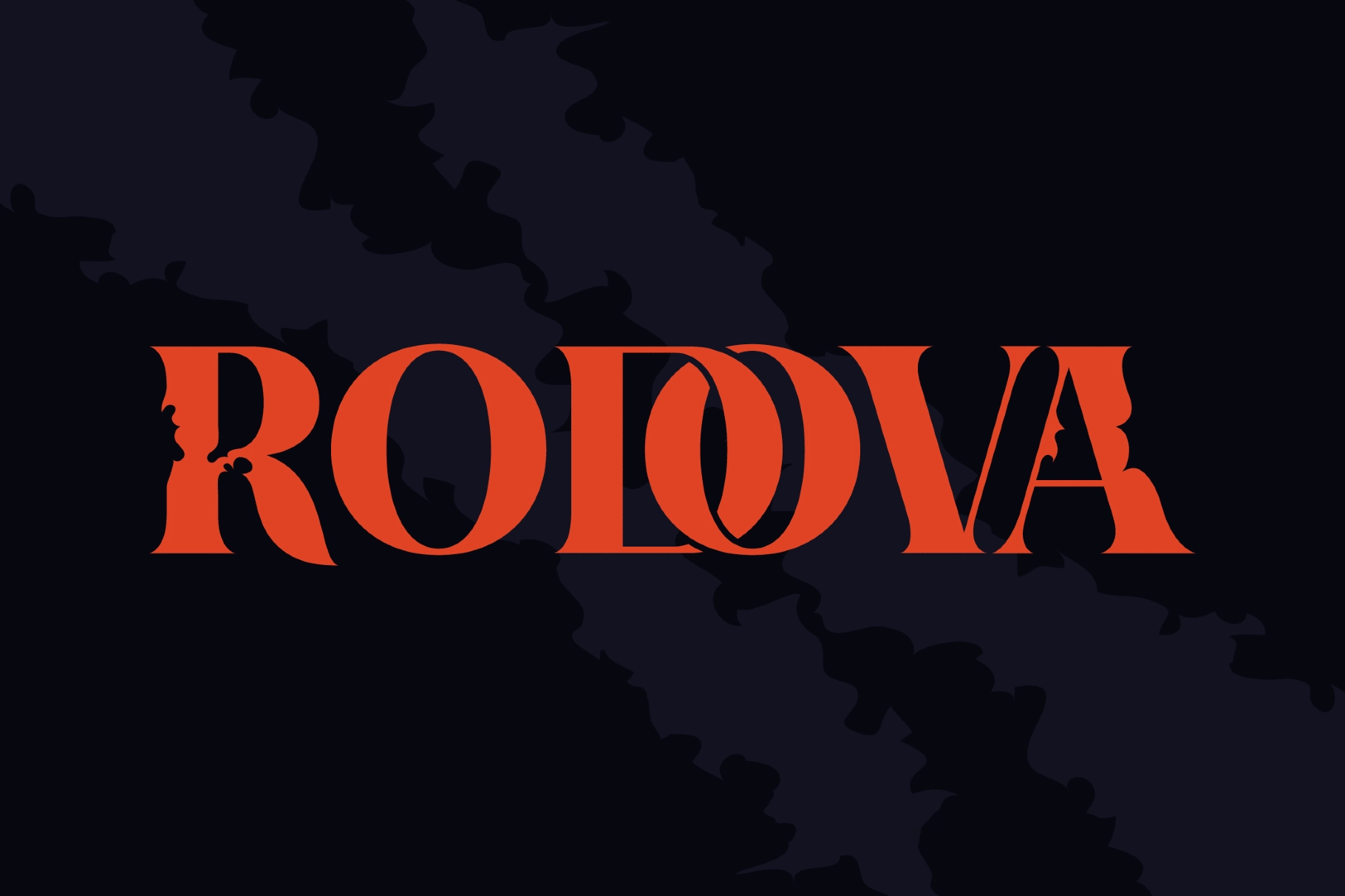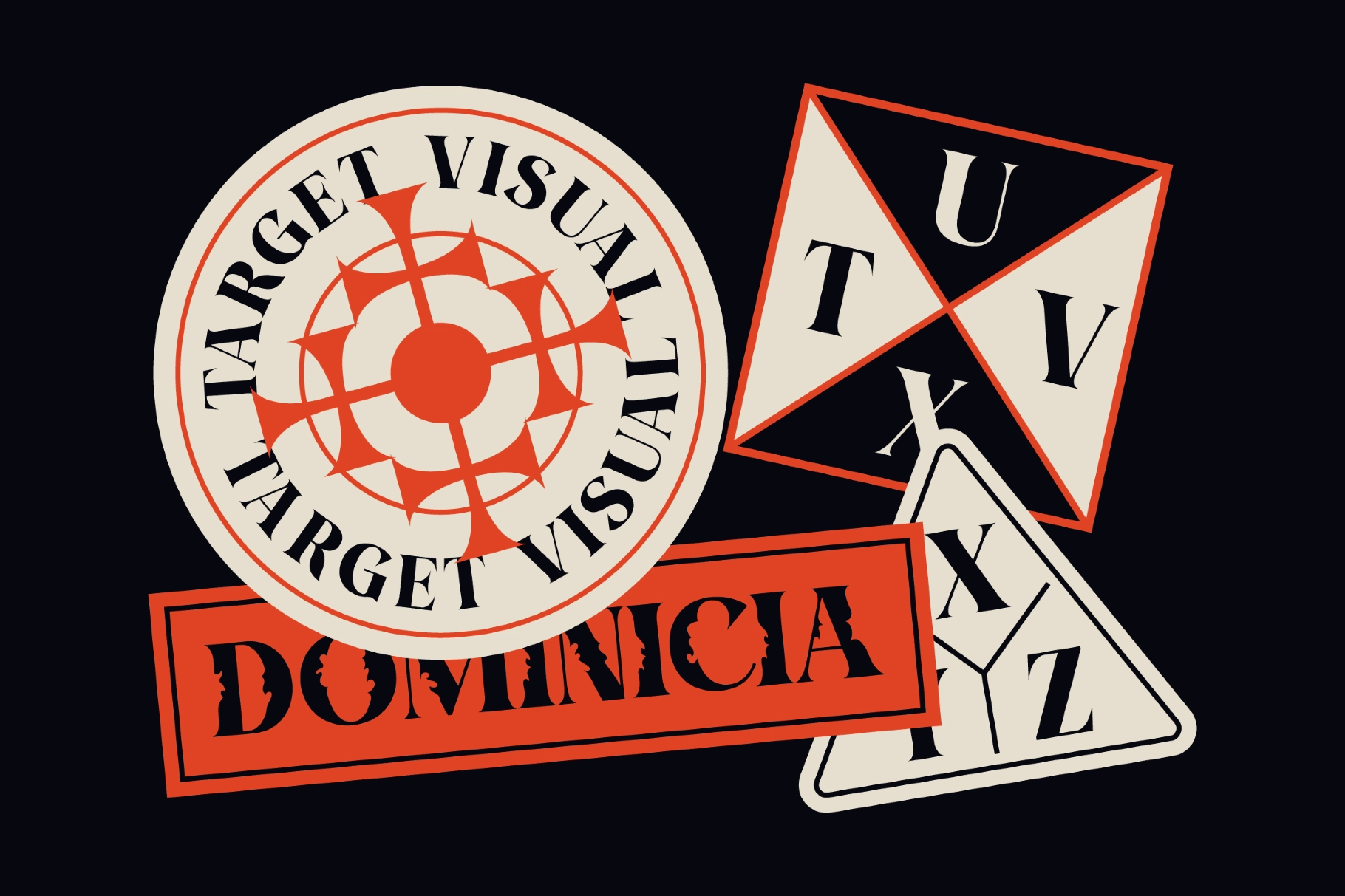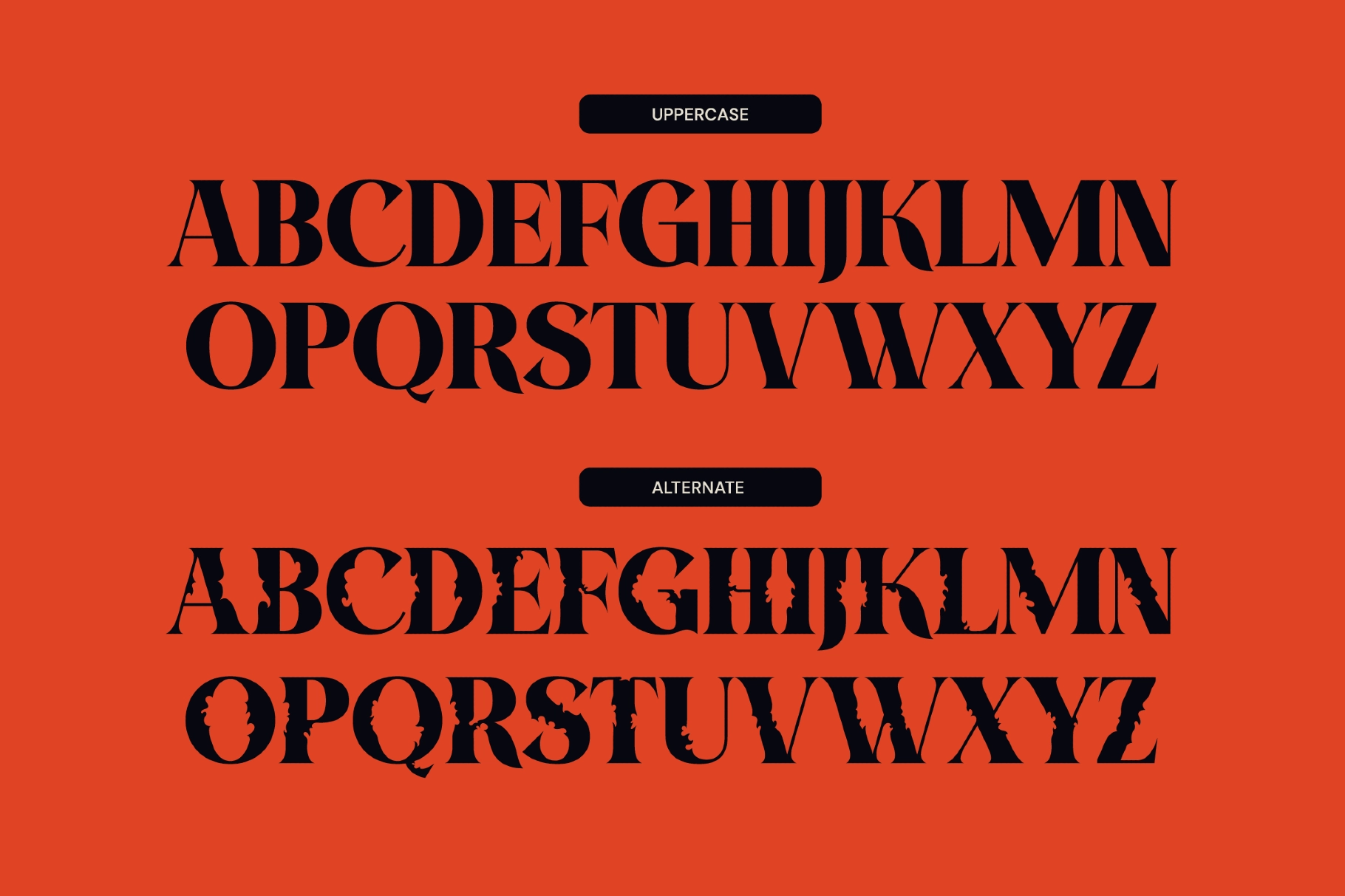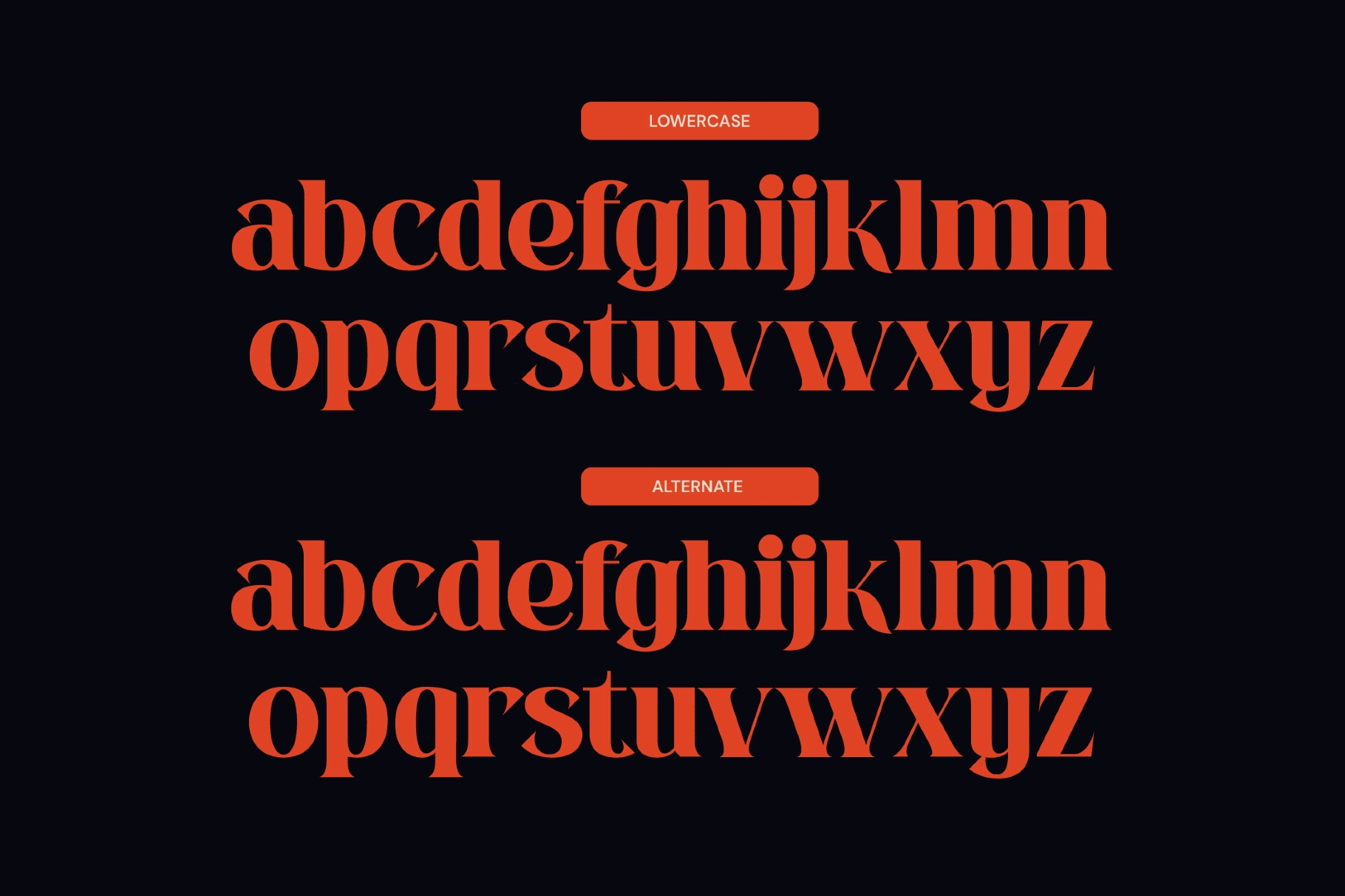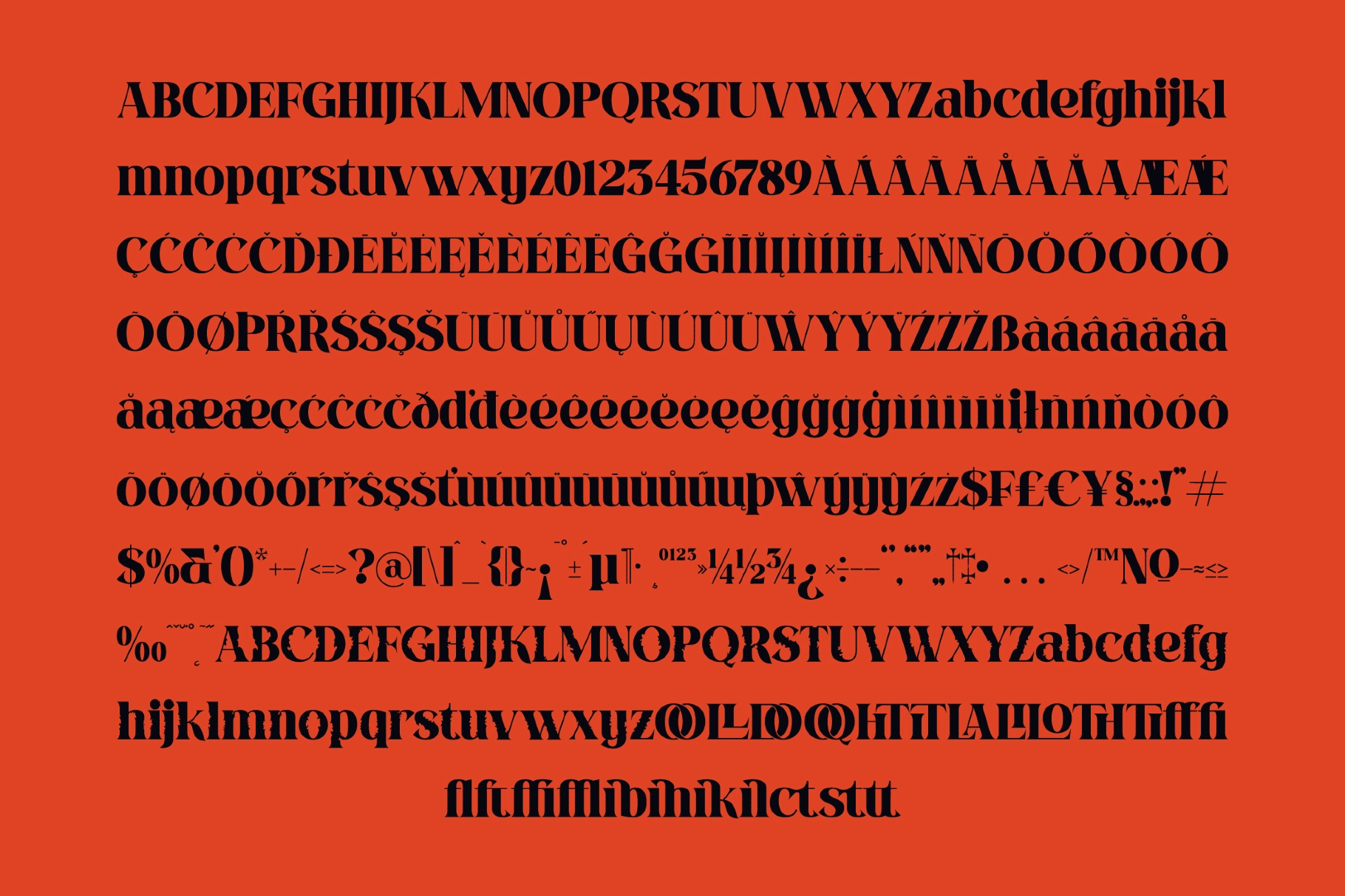
Rodova - Bold Serif Display Font
RODOVA
Rodova is a bold serif display font built on extreme thick-to-thin contrast, sharp wedge serifs, and a wide x-height that gives lowercase letters real presence on the baseline. The construction reads as condensed Didone pushed into graphic-design territory — heavy stems, pinched waists, and counters that open wide enough to anchor tight circular or stacked type compositions.
Use Rodova for logos, streetwear graphics, badge and sticker designs, editorial headlines, album covers, event posters, tattoo-adjacent branding, horror and dark-themed campaigns, merch prints, and underground label identity.
- Uppercase & lowercase;
- Numerals, punctuation & symbols;
- Standard ligatures;
- Stylistic alternates: clean set + thorn-fill alternates;